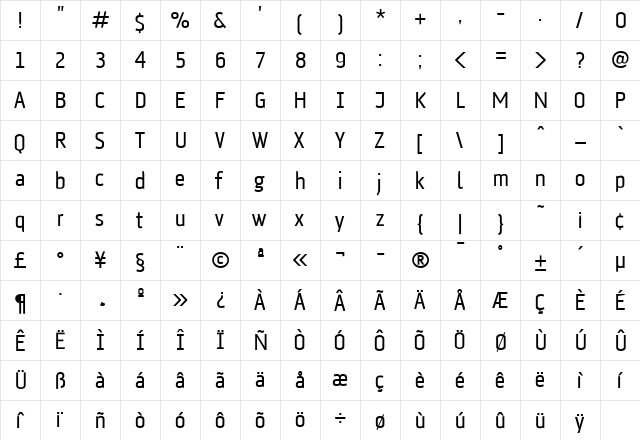
AFKlampenborg Regular
Design Context for AFKlampenborg Typeface
AFKlampenborg takes a measured approach to typography — its balanced proportions and neutral character make it a reliable workhorse for both digital and print work.
Pro Tip: Use AFKlampenborg in both headline and body roles to test its range before committing to a single application.